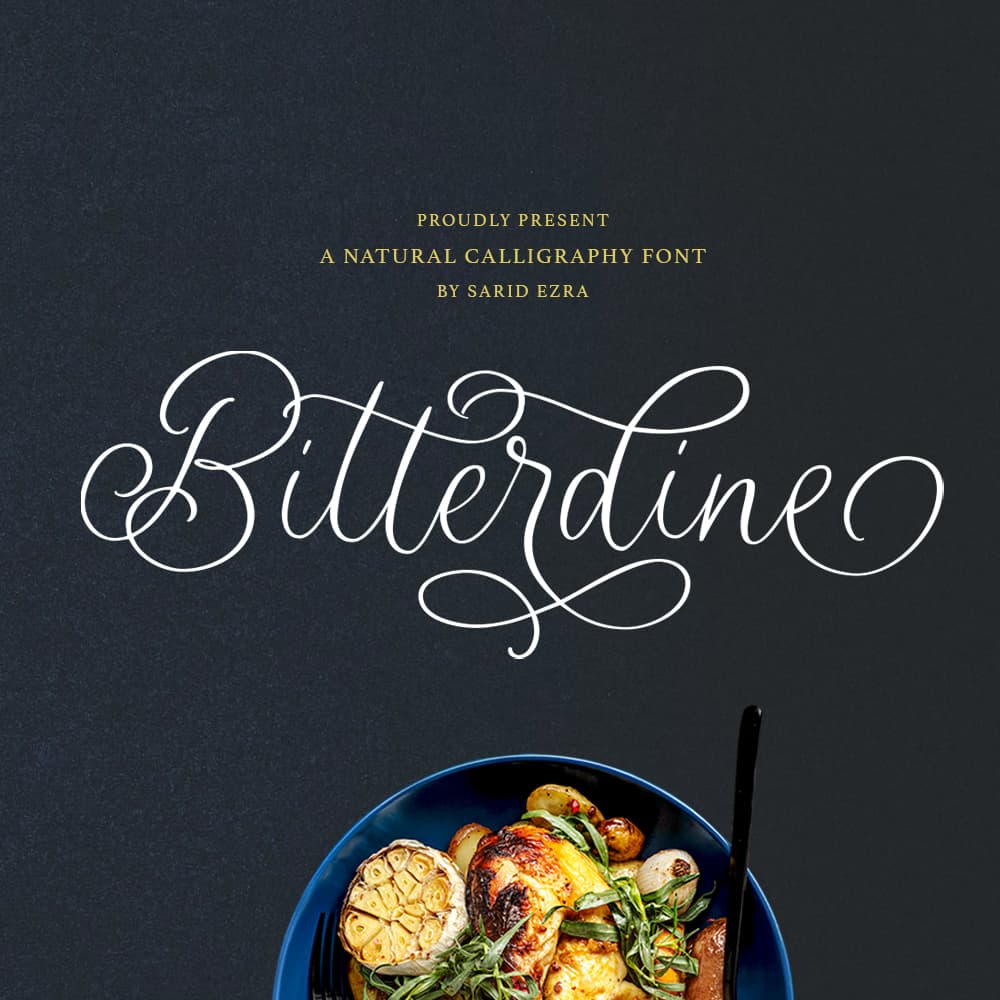
<p><strong><em>Bitterdine Script</em></strong> is modern and natural calligraphy that contain lowercase, uppercase, symbol, and also support multi language. Including ligatures, initial & terminal swash, special swash, and many alternates that up to 7 set each characters. You can use this font to make a logo for branding, beautiful fashion design, suitable for wedding invitation, or handwritten quote. Also already PUA Encoded.</p>